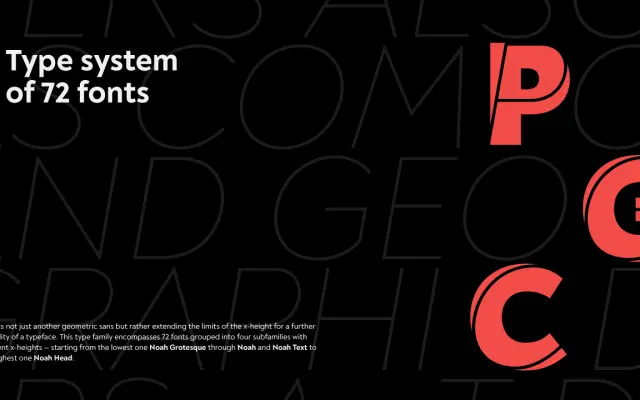
Noah
Fontfabric · Svetoslav Simov, Radomir Tinkov, Stan Partalev · 2019
A geometric sans-serif from Fontfabric spanning 72 styles across four subfamilies tuned for text, display and grotesque applications.
Released in 2019 by Svetoslav Simov, Radomir Tinkov and Stan Partalev, Noah is organised into four sub-families — Noah, Noah Grotesque, Noah Head and Noah Text — each running from Thin to Black with true italics throughout. The extended x-height and moderate contrast make it adaptable across screen and print, while OpenType alternates including a binocular 'g' and geometric 'a' add stylistic range. Latin Extended and Cyrillic coverage spans more than 130 languages.
Blends geometric construction with grotesque detailing, including humanistic terminals and OpenType alternates such as a binocular 'g'. Extended x-height and vertical stress are characteristic of the geometric sans genre.